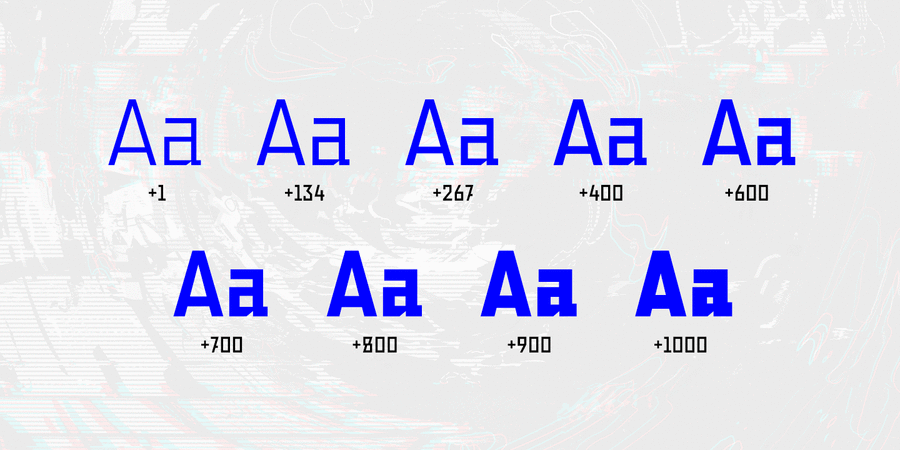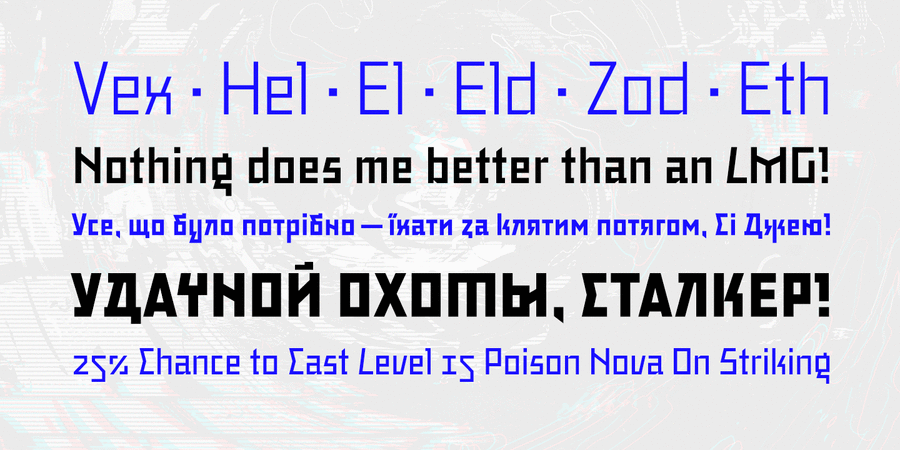
Legasov Variable Font (1 font)
Variable Font Legasov designed for logos, titles, book covers, and branding identity. You can also use it for small text fragments. This is a modern geometric grotesque inspired by the Ukrainian modernism of the last century. It has a dynamic shape of characters and an avant-garde nature. Designed by Kyrylo Tkachov and Serhii Makarenko in 2022.
Hit of 1920s Hit of 1930s Legasov Variable Font supports 87 languagesUkrainian, English, German, French, Polish, Portuguese, Spanish, Georgian, French, Greek (modern), Russian, Czech, Dutch, Italian, Swedish, Turkish, Finnish, Belarusian, Greek, Serbian, Bulgarian, Estonian, Lithuanian, Albanian, Afrikaans, Basque, Breton, Valencian, Galician, Gaelic (Scottish), Danish, Indonesian, Irish, Icelandic (Win), Karakalpak, Catalan, Norwegian, Occitan, Rhaeto-Romance, Sami Lule, Tswansky, Uzbek (Lat.), Faroese, Frisian, Chamorro, Estonian (Win), South Sami, Albanian (Win), Hungarian, Upper leprechauny, Karelian, Latvian (Mac), Lithuanian (Mac), Maori (Mac), Moldovan (Lat.), Lower Sorbian, Romanian (Win), Slovak, Slovenian, Turkmen (Lat.), Croatian (Win), Estonian (Mac), Kurdish, Latvian, Maori, Romanian, Abazin, Avar, Agul, Adyghe, Darginsky, Ingush, Kabardino-Circassian, Kabardian, Karachay-Balkar, Kumyk, Lak, Lezghian, Macedonian, Mordovian-Moksha, Mordovian-Erzya, Nogai, Rutulian, Tabasaran, Tatar, Tsakhur, Chechen Functions of font family Legasov Variable FontTypeface use in layout:
Associations for font family Legasov Variable FontTypeface personality and character:
serious, convincing, solid, iron, reliable, manly, self-assured, steel, nostalgic, totalitarian, stable, loud, flat, strong, durable, political, communist, revolutionary, daring, proletarian, accurate, rectangular, industrial, technogenic, military, army, soldierly, urbanistic, rude, workman, motivating, railway, ambitious, urban, angular, sharp, rigid, broken, chopped, elementary, cutting, crisp, brutal, game, robust, lasting
war, army, weapons, mechanical engineering, flag, meeting, policy, mine, factory, metallurgy, machine tool, tool, building, building materials, packing, stock, port, box, ammunition, architecture, constructor, scheme, equipment, industry, power station, energy industry, repairs, urban studies, depot, miner, helmet, uniform, railway carriage, aviation, aircraft, airsoft, construction, footwear, coworking, railway, city, workman, strike, Protest, cubes, lego Typeface exhibits stylistic traits: